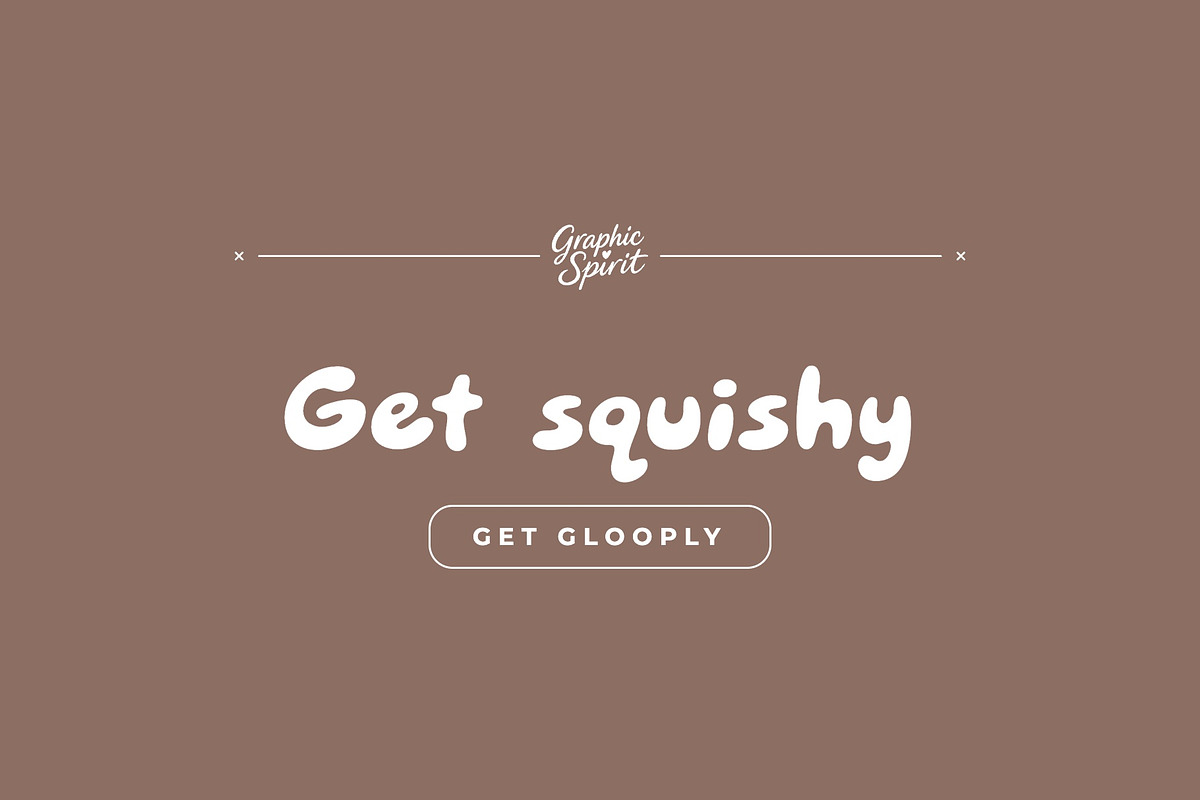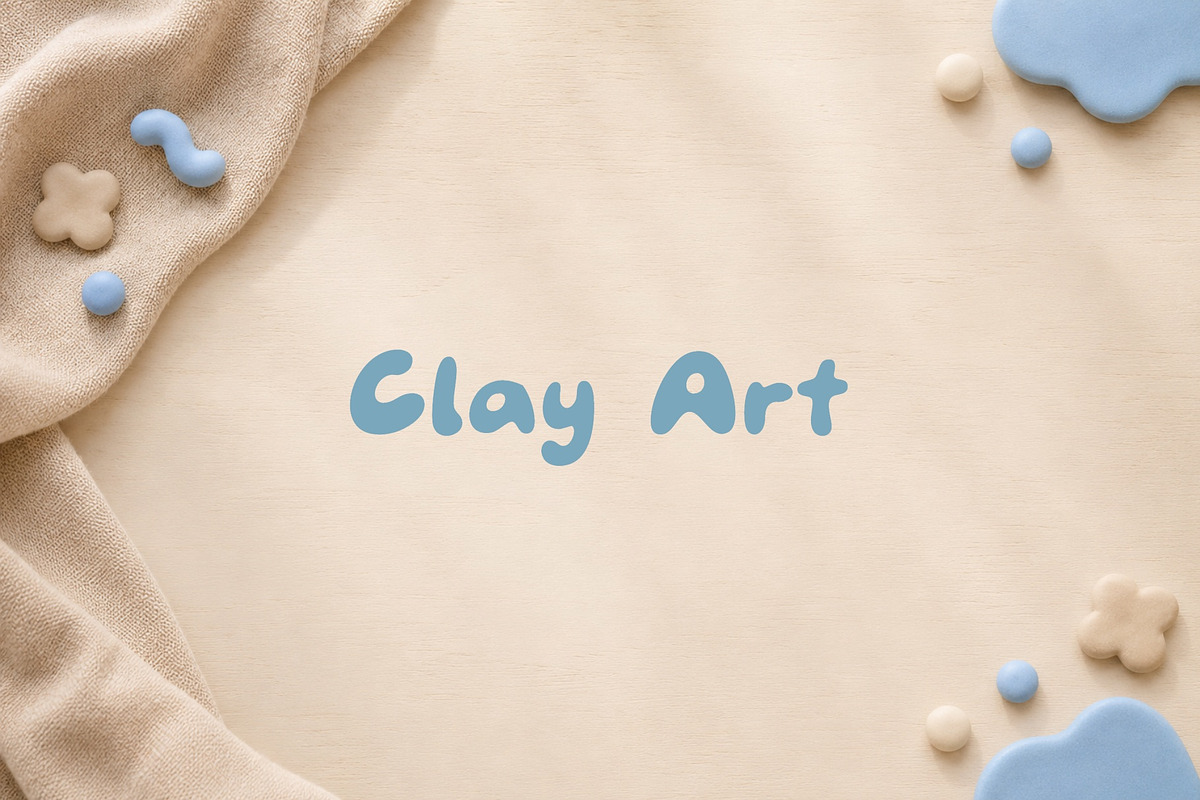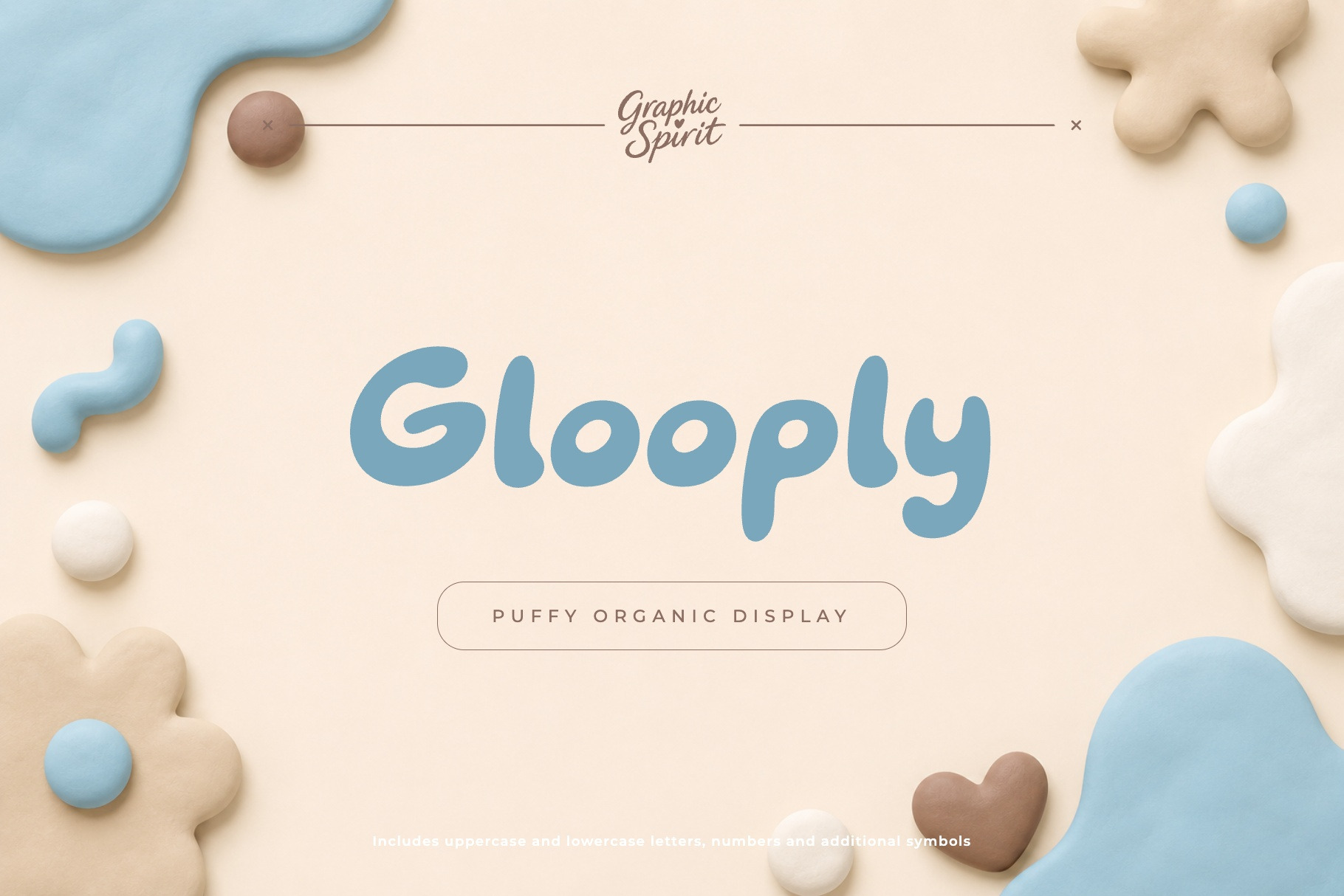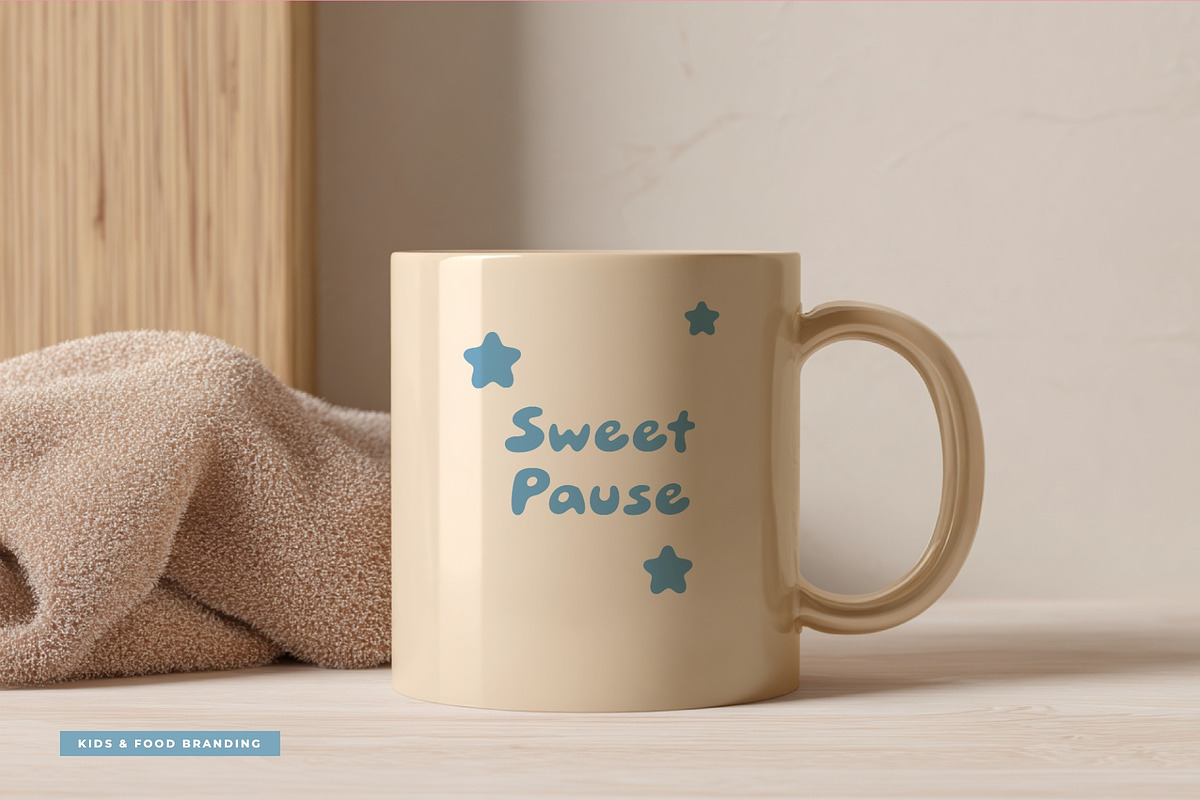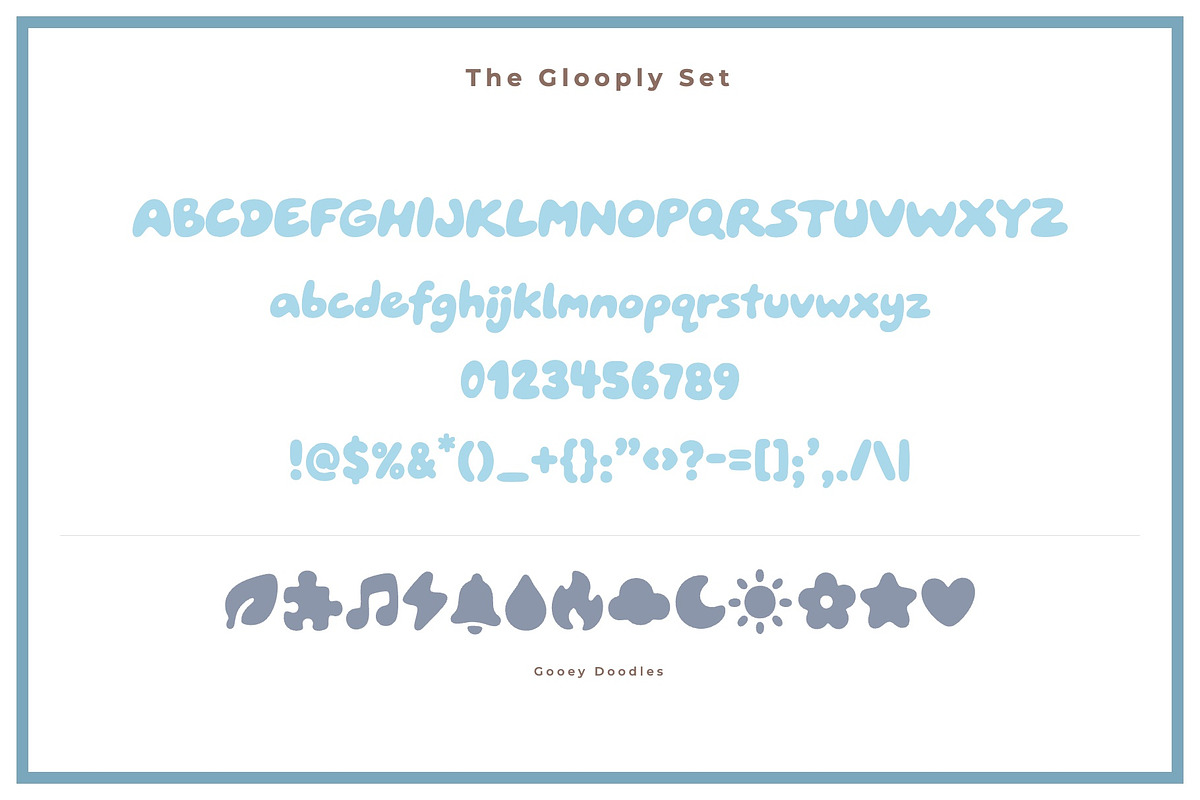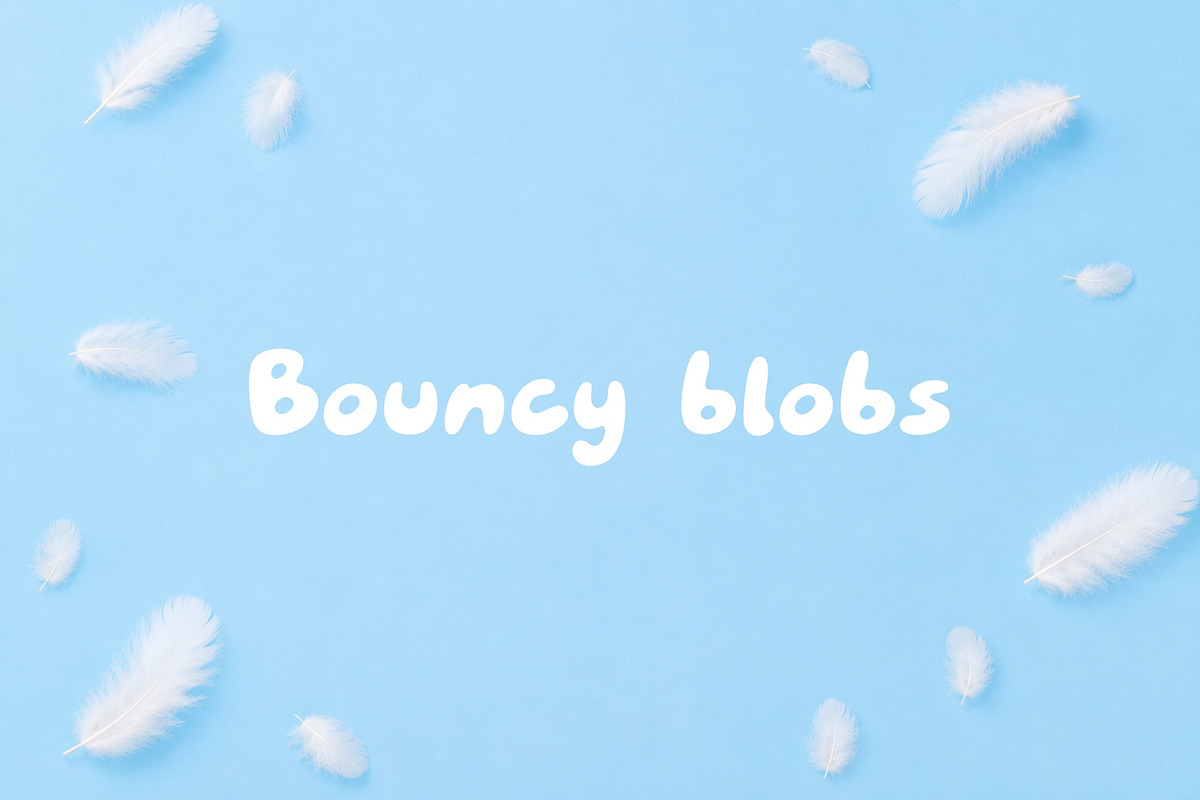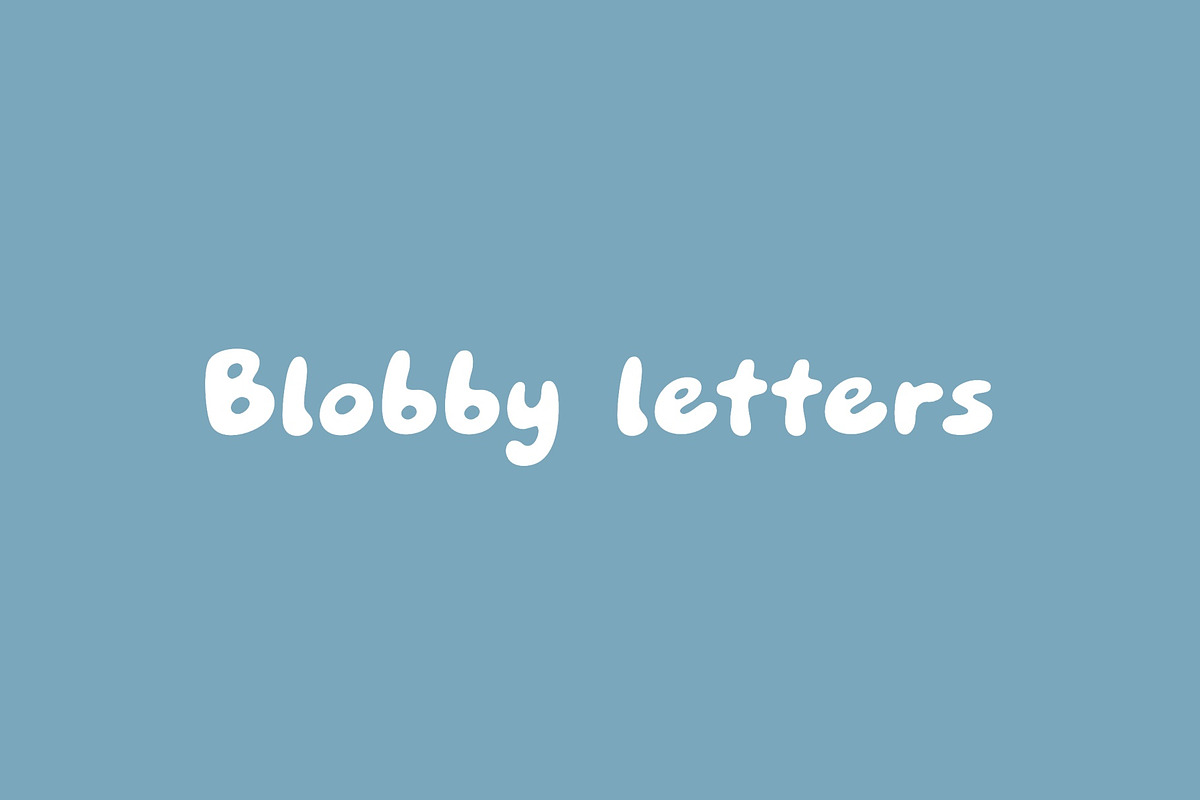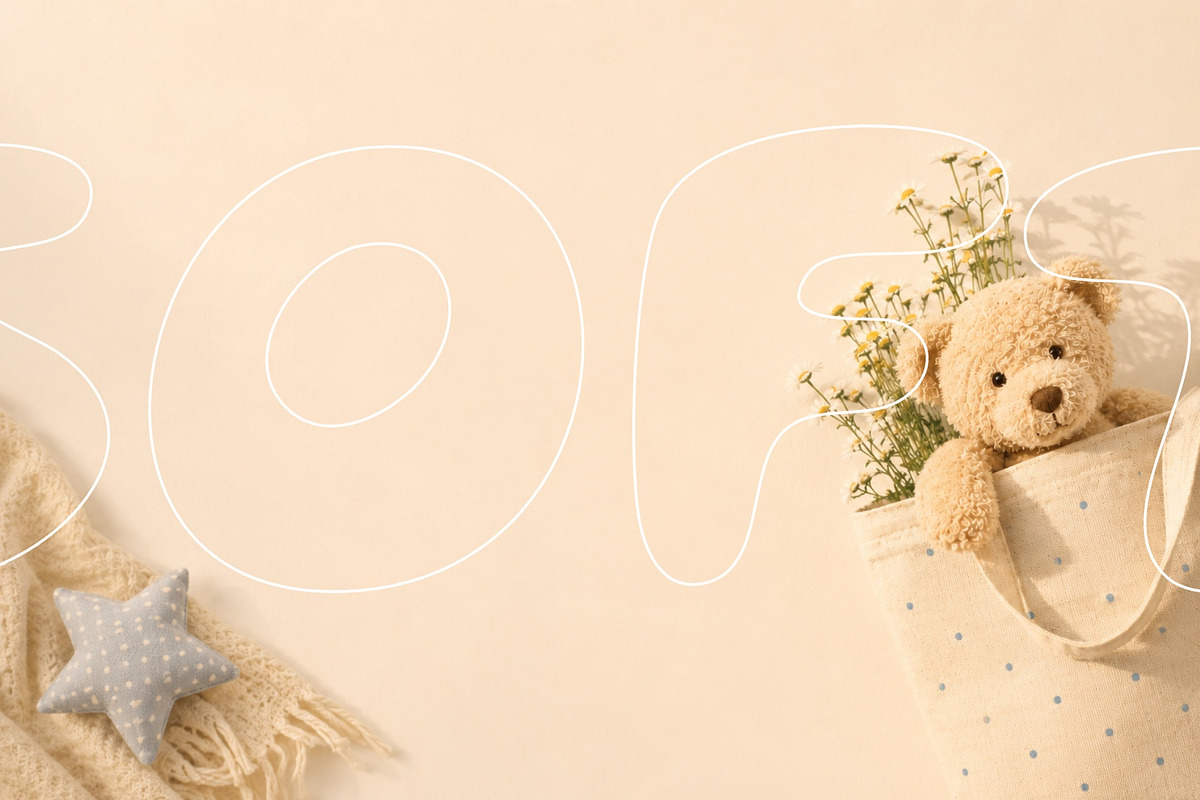
Glooply Font
✨ Glooply is a puffy organic display font with soft blob shapes, squishy tactile rhythm, and gentle playful warmth. It was created for designers, makers, and small brands who need expressive typography with a clear visual personality.
🎨 Glooply works beautifully for kids branding, toy packaging, soft product labels, nursery posters, clay art graphics, food packaging, playful logos, friendly social posts. The style is strong enough for headlines and product names, but still friendly enough for approachable branding, packaging, posters, labels, social graphics, and creative layouts.
💛 The typeface has a distinct display rhythm, so even short words feel designed and intentional. It is a useful choice when you want a project to feel crafted, memorable, and visually specific.
Best for:
- 🫧 Soft kids branding and playful logos
- 🧸 Toy packaging and nursery graphics
- 🍦 Food labels and sweet product design
- 🎨 Clay art visuals and craft projects
- 💙 Squishy rounded display typography
Includes uppercase and lowercase letters, numbers, punctuation, and additional symbols shown in the previews.